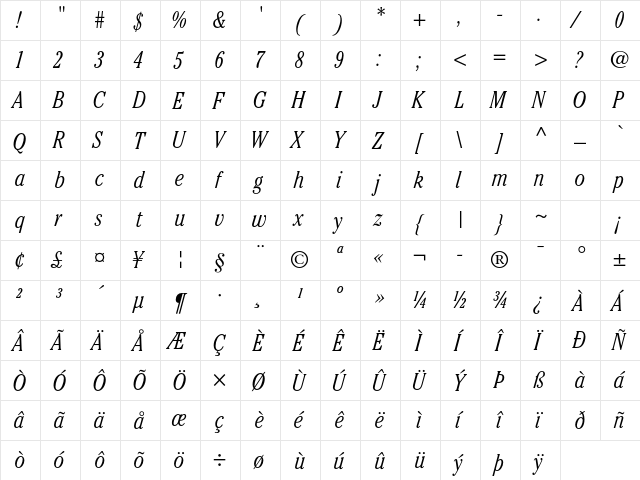
ITC Cheltenham Std Light Condensed Italic Font Preview
| Designer | Tony Stan |
Design Context for ITC Cheltenham Std Typeface
ITC Cheltenham Std takes a measured approach to typography — its balanced proportions and neutral character make it a reliable workhorse for both digital and print work. Its italic angle brings a sense of urgency and motion to the letterforms. Its slender proportions lend an understated elegance to any composition. Its narrow stance lets it pack a punch even in space-constrained designs.
Pro Tip: Try ITC Cheltenham Std for annotation and caption copy alongside an upright companion — the contrast in angle creates a dynamic but ordered typographic system.